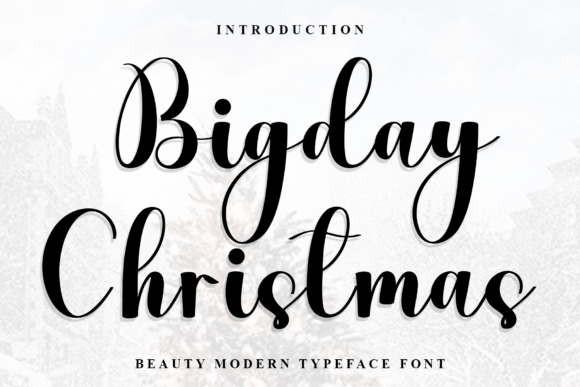
Spreading Holiday Cheer with Bigday Christmas Font
As the holiday season approaches, I find myself rummaging through old scrapbooks and photographs of Christmases past, reminiscing about the joy and love that filled the air. It’s during these moments that I crave a font that captures the essence of warmth and friendliness – a font that embodies the spirit of the season.
Enter the Bigday Christmas Font, a charming and creative typeface that embodies the magic of the holiday season. Perfect for personal projects, invitations, and social media graphics, this font adds a touch of whimsy and playfulness to any design. With its round, playful strokes and hand-drawn aesthetic, the Bigday Christmas Font is a valuable tool for designers looking to add a unique and festive touch to their work.
- Unique Characteristics: The Bigday Christmas Font features a unique, playful design with a mix of bold and cursive styles, perfect for adding a festive touch to holiday-themed projects.
Bigday Christmas Font Review
I recently had the chance to work with the Bigday Christmas Font, and I must say it’s a unique addition to any holiday-themed project. ✨ One thing that stands out is its festive and playful vibe, perfect for capturing the spirit of Christmas. The font’s irregularities and imperfections give it a handmade feel that adds to its charm.
Another aspect I appreciate is its versatility. ✨ It can be used for a variety of applications, from signage to invitations, and even digital projects. The font comes in multiple weights, making it easy to mix and match styles to suit your design needs.
- ⚠️ The font may not be suitable for formal or traditional Christmas designs, as its playful nature may not fit with more subdued themes.
- ⚠️ Some characters may not be as evenly spaced or aligned, which could be an issue for designers who prefer precise typography.
- ⚠️ The font’s irregularities, while charming, may not be to everyone’s taste.
Overall, I think the Bigday Christmas Font is a great choice for designers looking to add a unique touch to their holiday projects. While it may have some limitations, its charm and versatility make it a valuable addition to any design library.
Use the Bigday Christmas Font to add a festive touch to your holiday designs, such as:
- Christmas card templates
- Gift tags and labels
- How to use Bigday Christmas Font: Use the font to create the invitation’s title, such as “Winter Wonderland” or “Merry Christmas”. You can also use it to add festive phrases like “Deck the Halls” or “Sleigh the Holiday Season”.
- Design Tips: Combine the Bigday Christmas Font with snowflake patterns, holly leaves, or festive ribbons to create a cohesive and inviting design.